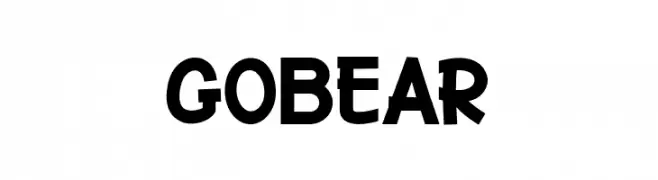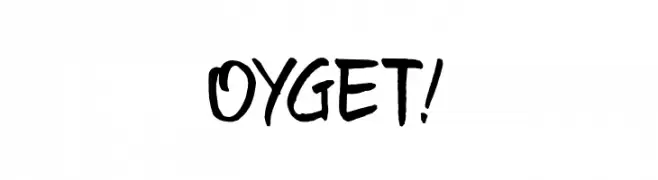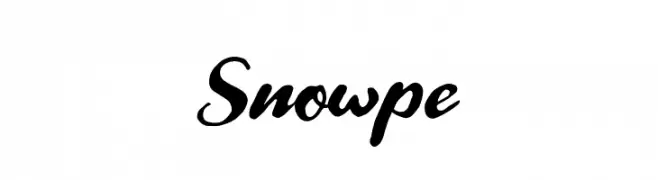
A bold, playful font with rounded, whimsical characters.
A bold, dynamic handwritten font with fluid strokes and a brush-like texture.
A bold, expressive script font with fluid and dynamic strokes.
A playful, rounded font with bold, uniform strokes and smooth curves.
A bold, handwritten font with energetic and playful strokes.